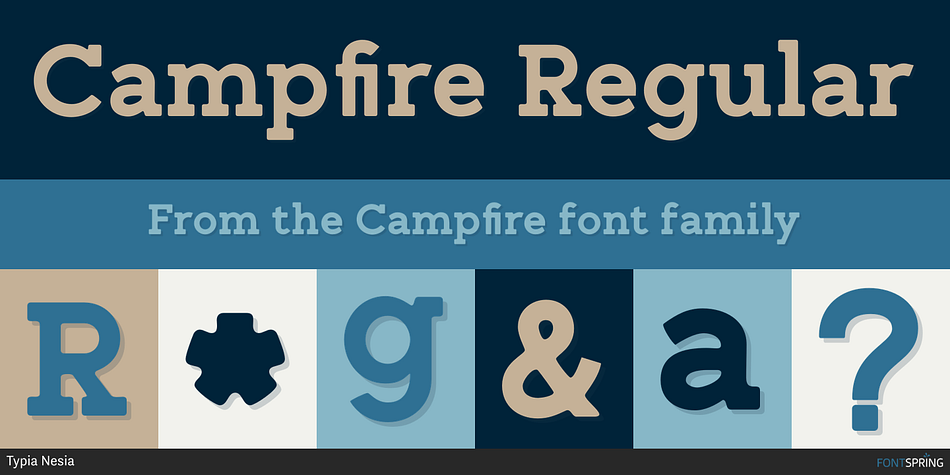
Campfire Regular
Campfire is a slab serif font family published by Typia Nesia.
Campfire - Adventure Font - Handmade Slab Serif Font
Campfire Slab Serif font is perfect for your up coming projects. Such as logo branding, editorial design, fashion, adventure apparel, stationery design, sport design, blog design, modern advertising design, card invitation, badge, art quote, home decor, book/cover title, special events and any more.